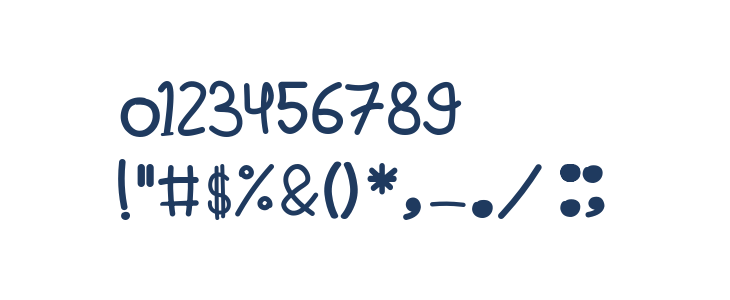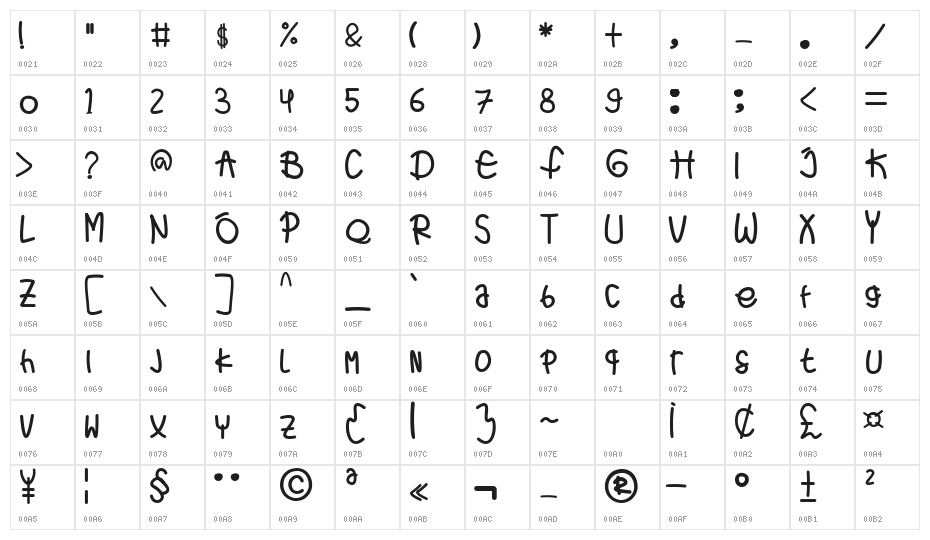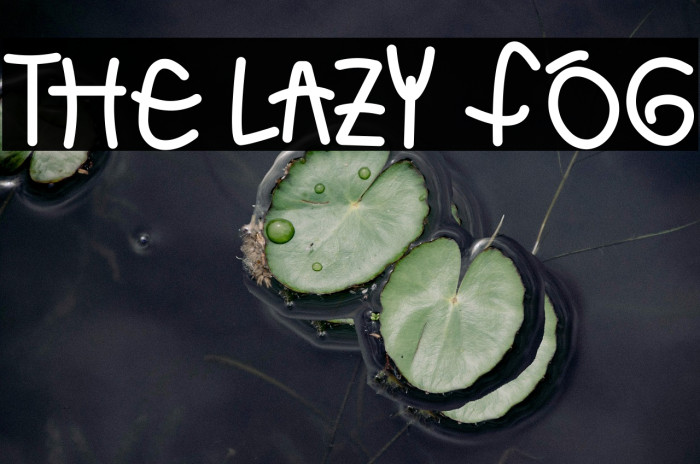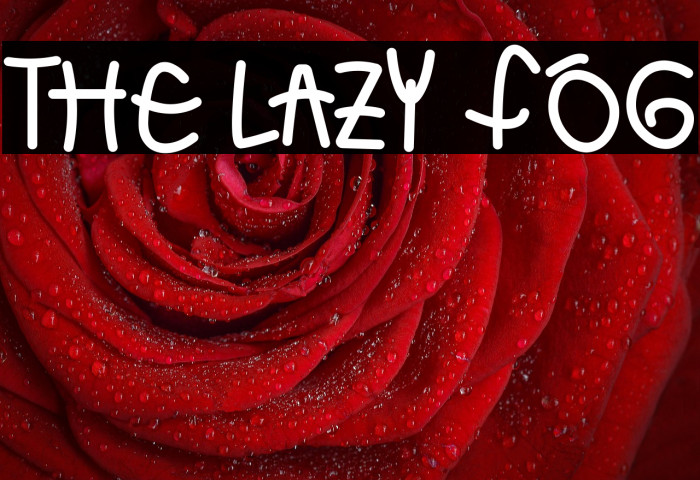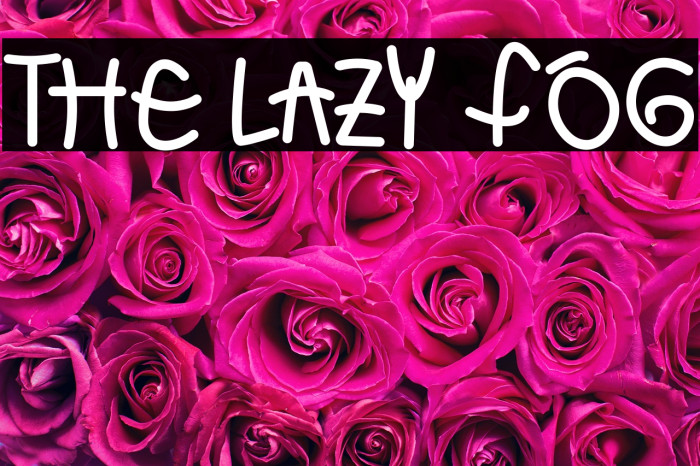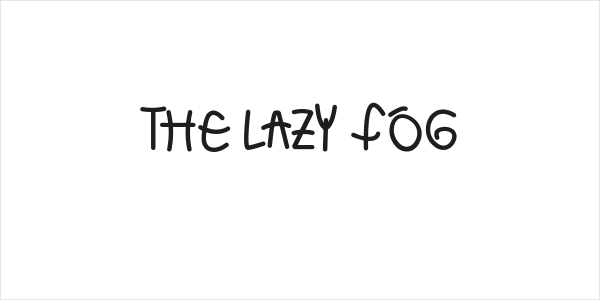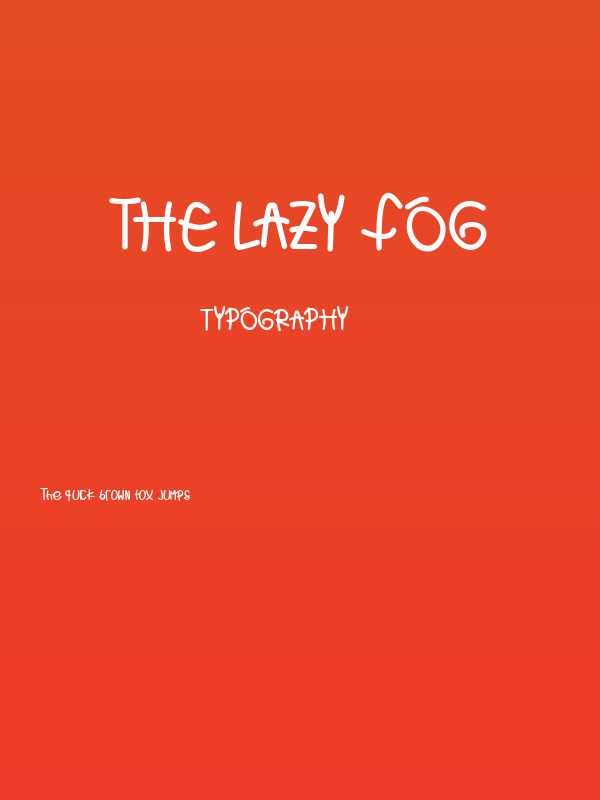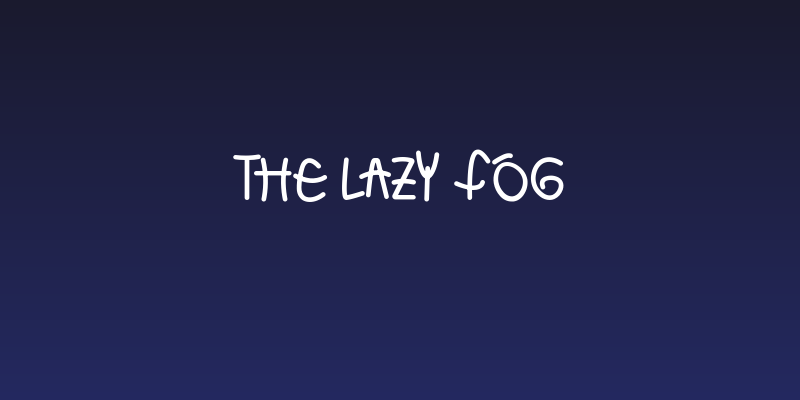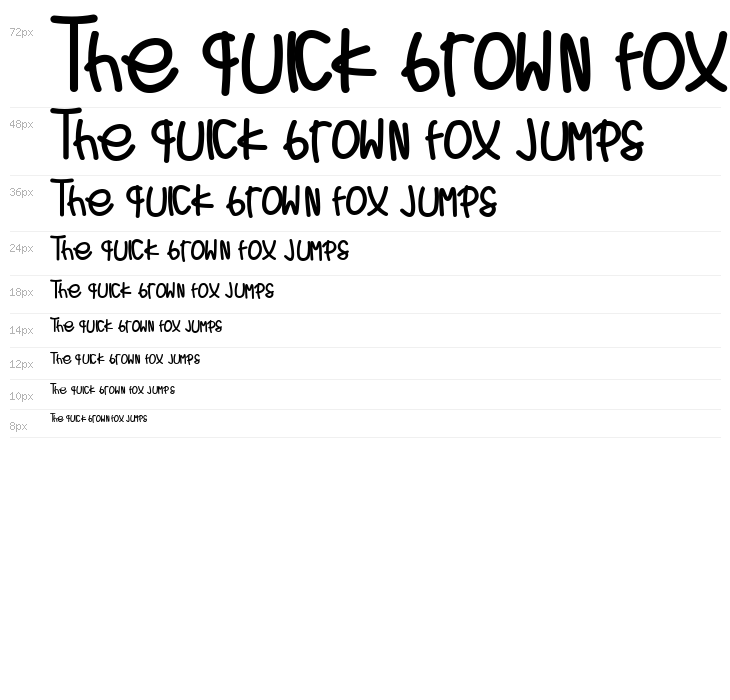
THE LAZY FOG Font
THE LAZY FOG Description
This playful and whimsical font features a handwritten style with bold, rounded characters. The letters have a casual, friendly appearance, with a slight slant that adds to their informal charm. The strokes are consistent in thickness, giving the font a cohesive look. The characters are well-spaced, ensuring readability while maintaining a fun and lively aesthetic. This font includes a full set of uppercase and lowercase letters, numbers, and a variety of special characters, making it versatile for different design needs.